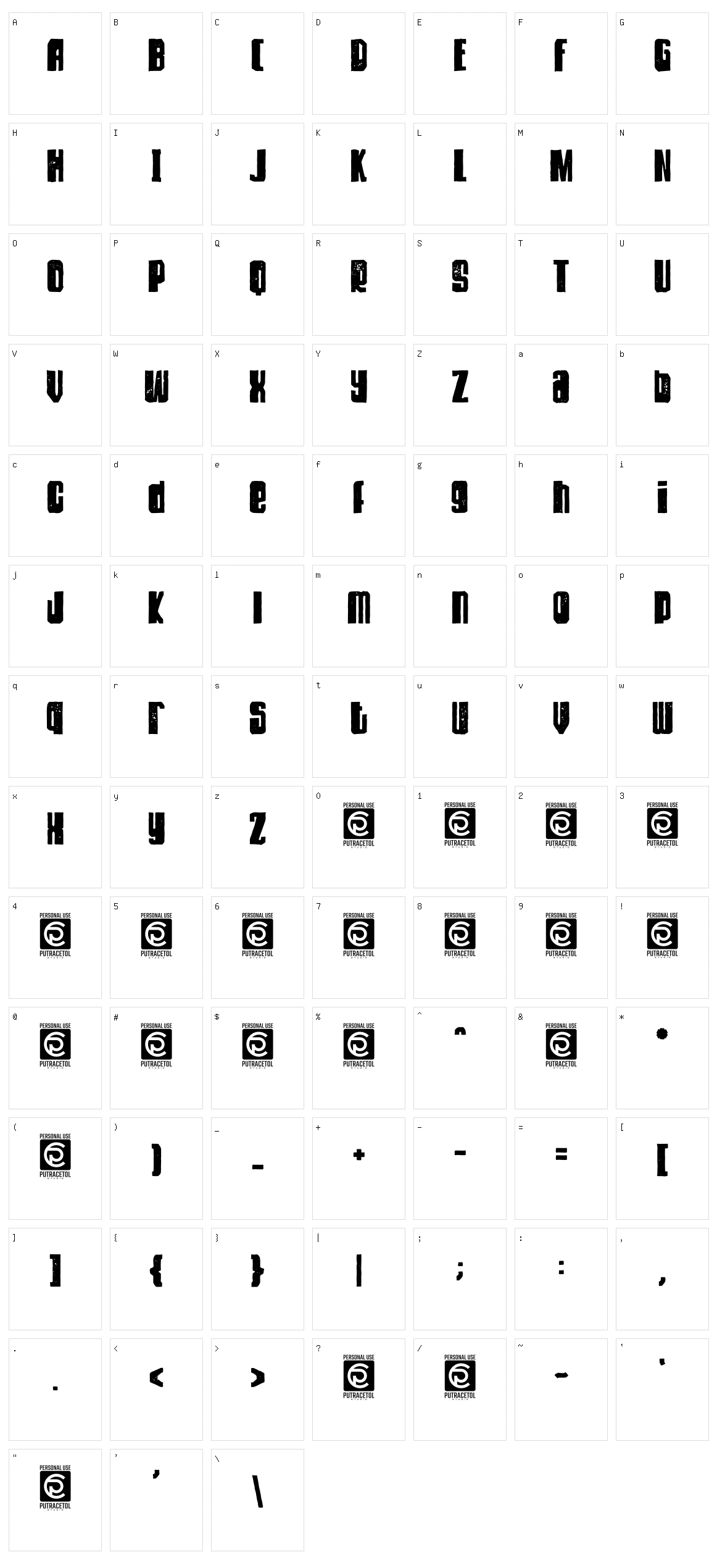
The free font Dirty Rock is carefully designed by PutraCetol Studio, showcasing a thoughtful balance of creativity and usability and falls under the Eroded font style. When you download the ZIP file, it contains only 1066.62 KB of font files, making it lightweight and quick to download. Please review the license details below to understand permitted usage and distribution rights. If license information is not available, we recommend using this font for personal projects only or contacting the author directly for commercial usage permissions.